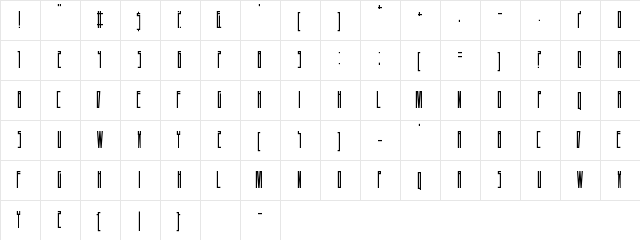
A Dash of Salt Regular
Design Context for A Dash of Salt Typeface
A Dash of Salt is a composed and adaptable typeface that performs quietly and consistently across a wide range of design contexts.